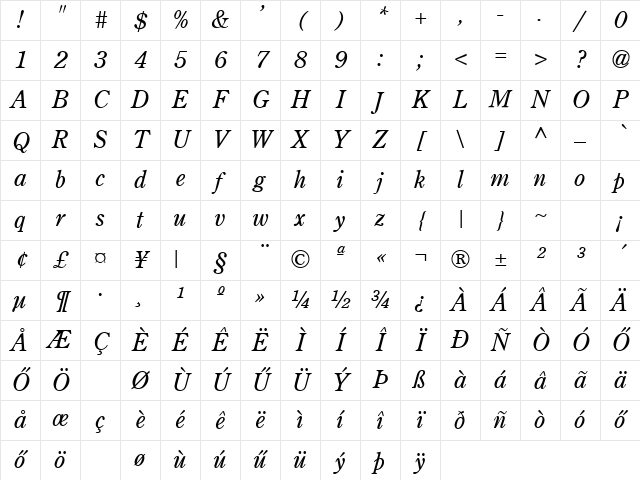
Complete HCenturionOld Italic glyph index. Displaying only characters natively supported by HCenturionOld Italic font.
HCenturionOld is a composed and adaptable typeface that performs quietly and consistently across a wide range of design contexts. The slanted form adds forward momentum and visual energy.